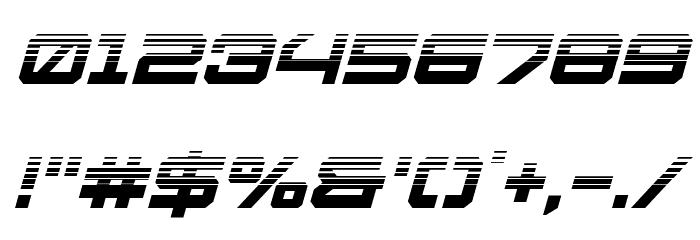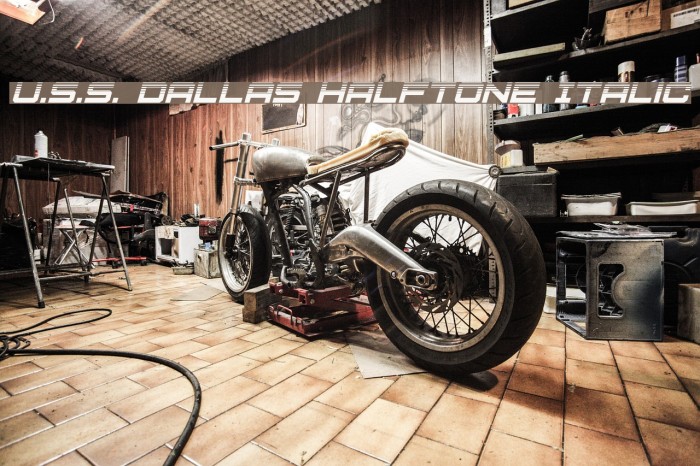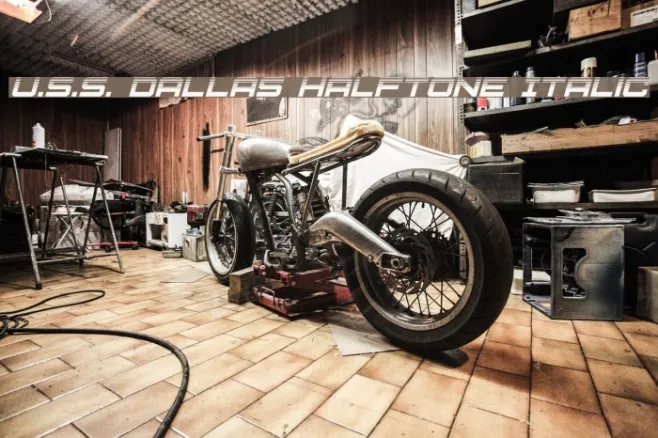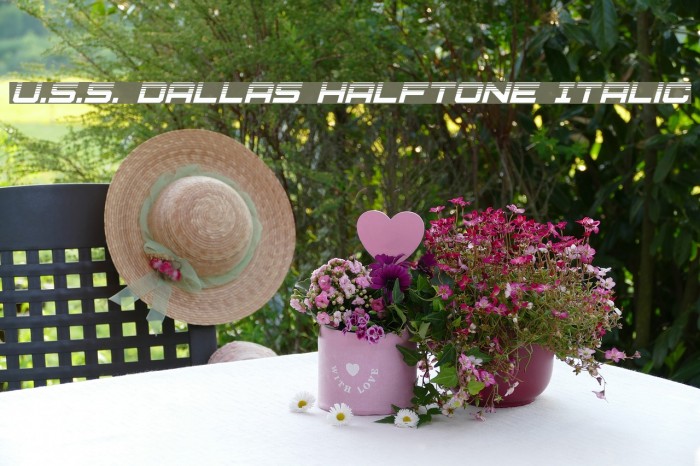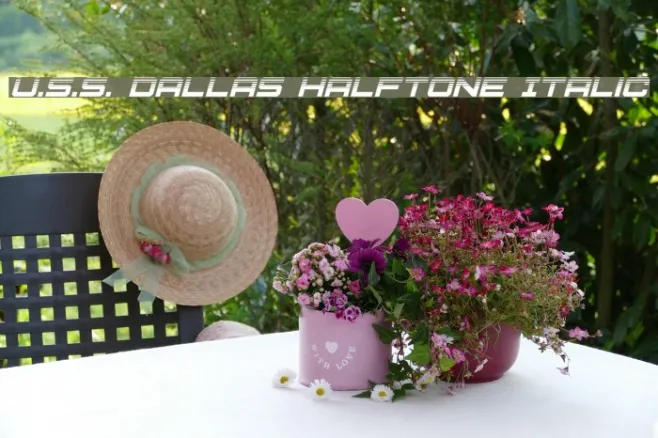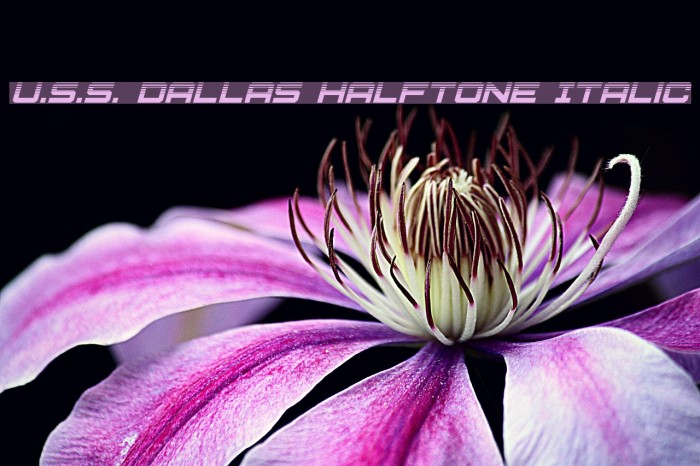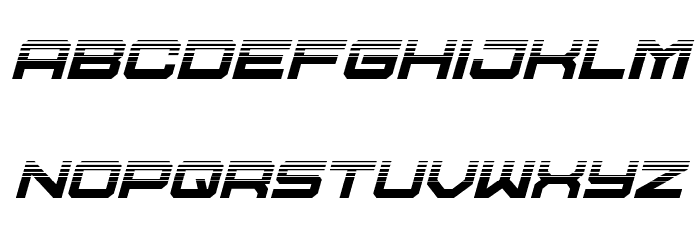
U.S.S. Dallas Halftone Italic Font
U.S.S. Dallas Halftone Italic Description
This font features a bold, futuristic design with a halftone effect that gives it a dynamic, high-tech appearance. The characters are italicized, adding a sense of motion and speed. The uppercase and lowercase letters maintain a consistent style, with sharp angles and a unique striped pattern that creates a sense of depth. The numbers and special characters follow the same aesthetic, making the font cohesive and visually striking. The overall look is modern and edgy, suitable for projects that require a strong, impactful typeface.
Proposed ProjectsIdeal for sci-fi themed designs, technology branding, video game titles, and futuristic posters.